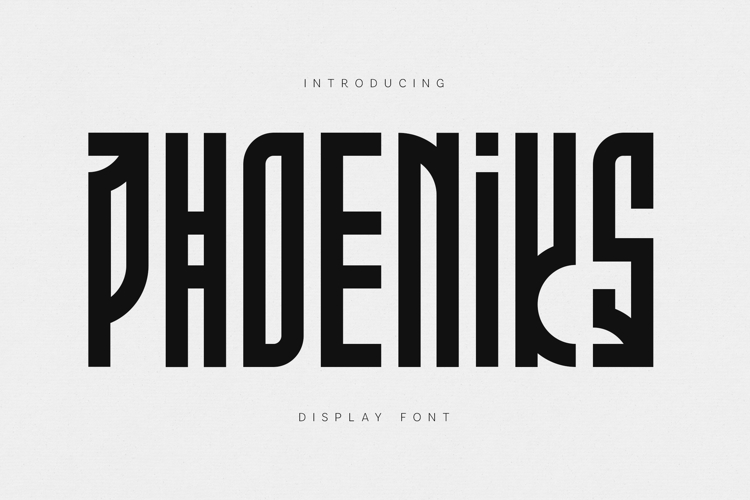
Phoeniks Display Font Futuristic Tech Cyberpunk
Phoeniks is a bold futuristic display font designed with sharp geometry, angular cuts, and a strong industrial aesthetic. Inspired by cyberpunk visuals and modern tech branding, it delivers a powerful and distinctive typographic voice.
With its unique letterforms and experimental structure, Phoeniks is perfect for projects that need a cutting-edge, digital, or futuristic feel. It stands out in headlines, posters, and branding where originality is key.
This typeface is built for designers who want to push boundaries and create visually striking compositions.
Perfect for
• Tech branding
• Cyberpunk designs
• Posters & album covers
• Gaming visuals
• UI / digital projects
• Experimental typography
• Unique geometric construction
• Strong display presence